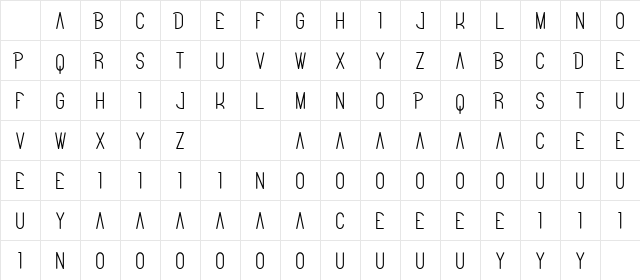
Complete Bitter Space Demo Regular glyph index. Displaying only characters natively supported by Bitter Space Demo Regular font.
Bitter Space Demo is a composed and adaptable typeface that performs quietly and consistently across a wide range of design contexts.